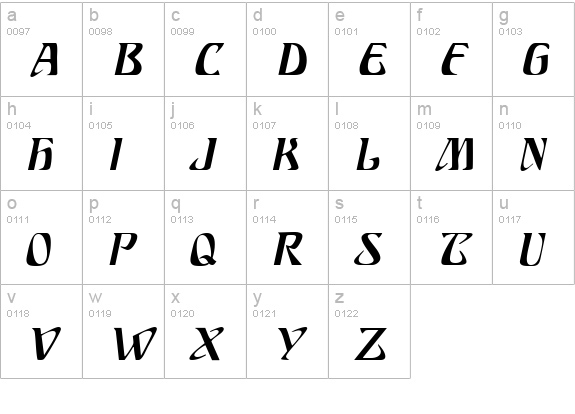
SundraDisplayCaps Italic Font Details
SundraDisplayCaps Italic is a distinctive, italic variant in the SundraDisplayCaps typeface family \xE2\x80\x94 well suited to design and typography projects.
Introducing SundraDisplayCaps Italic font, a sophisticated and elegant typeface that exudes charm and grace. This modern display font features sleek lines and stylish curves, making it the perfect choice for adding a touch of class to your designs. SundraDisplayCaps Italic is ideal for creating eye-catching headlines, logos, branding materials, and more. Its italicized style adds a dynamic and contemporary flair to any project, making it stand out from the crowd. Best of all, SundraDisplayCaps Italic font is available for free download at FontsMarket.com. Now you can elevate your designs with this stunning typeface without breaking the bank. Don't miss out on the opportunity to add SundraDisplayCaps Italic to your font collection today!